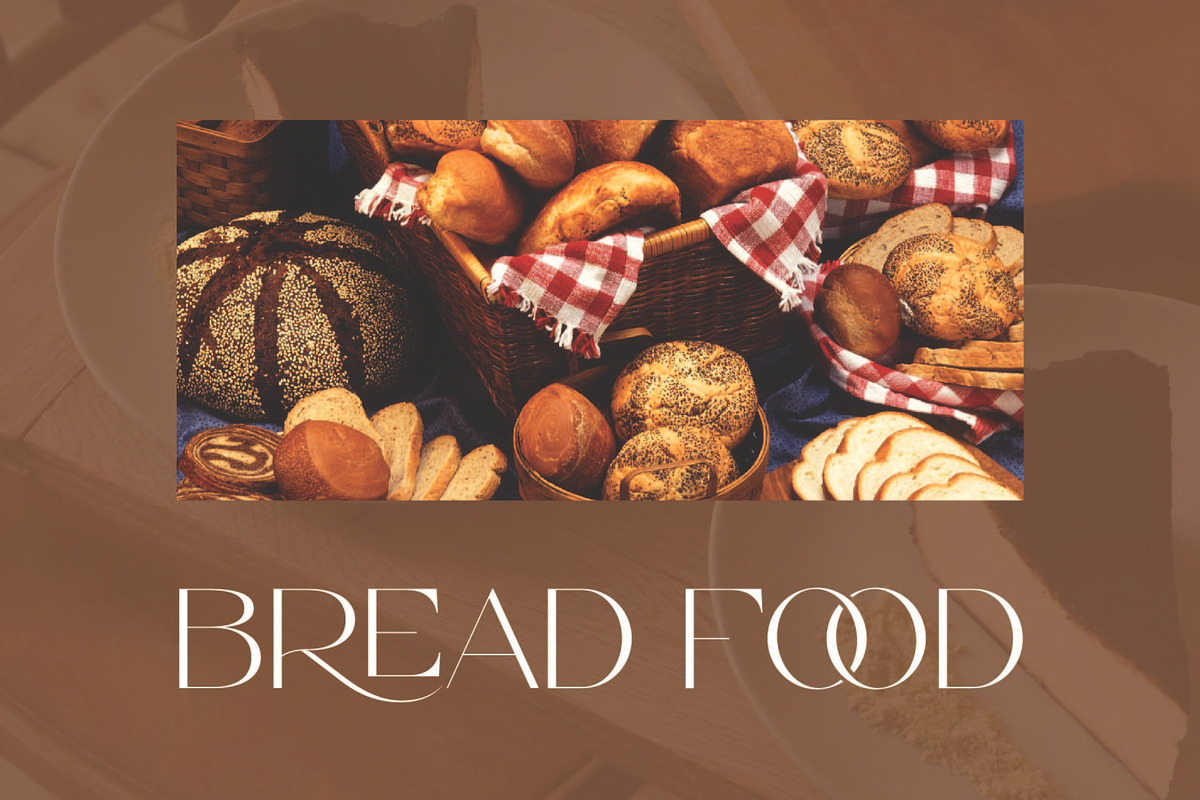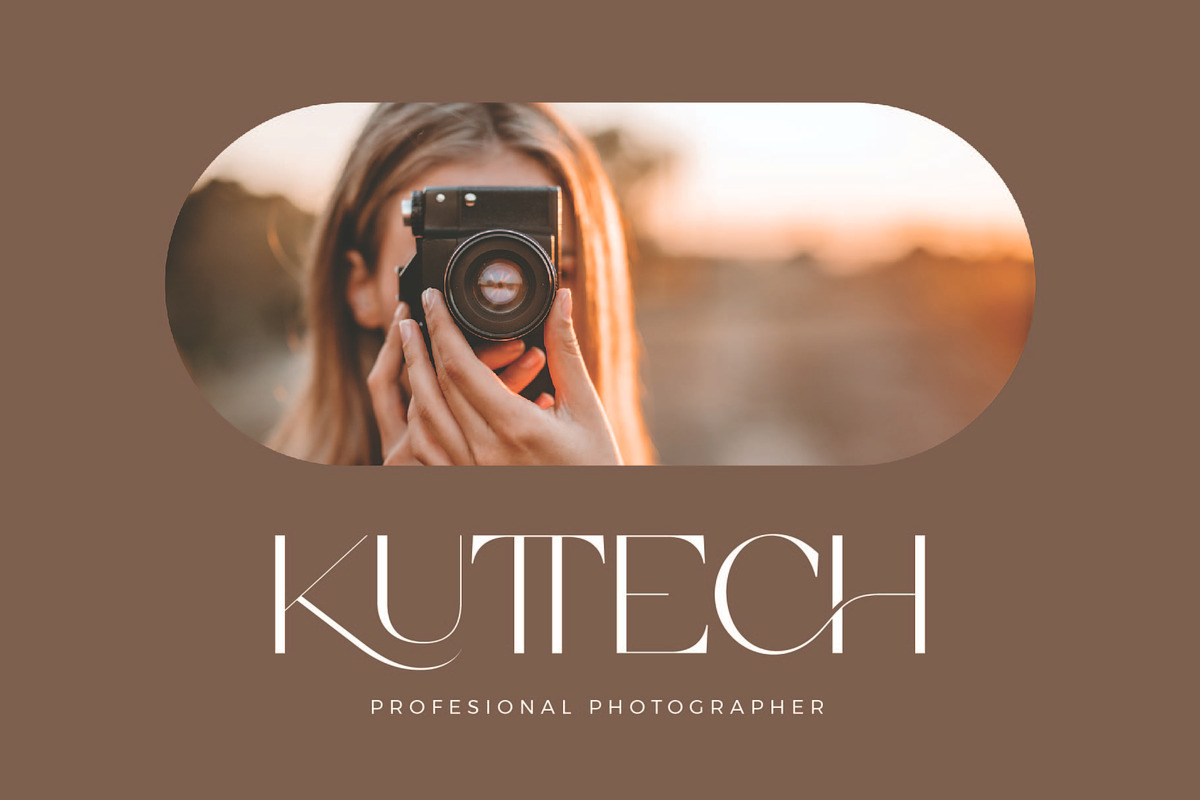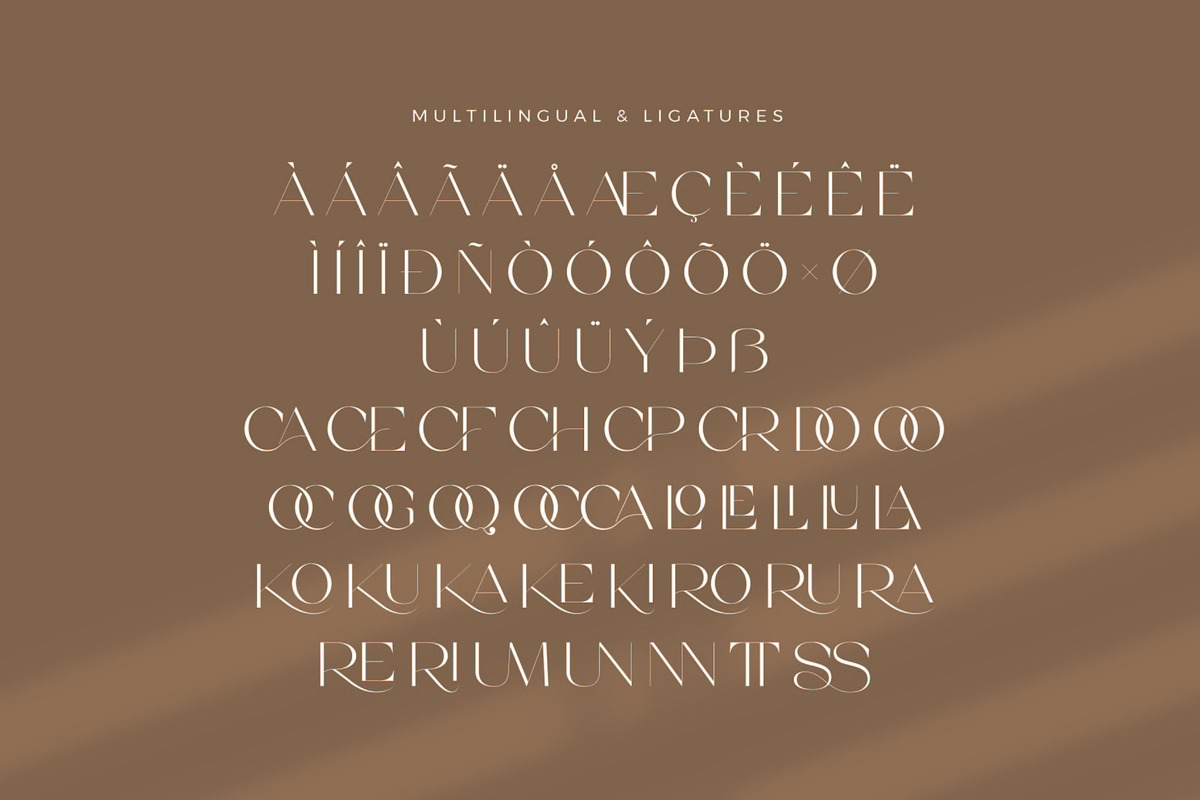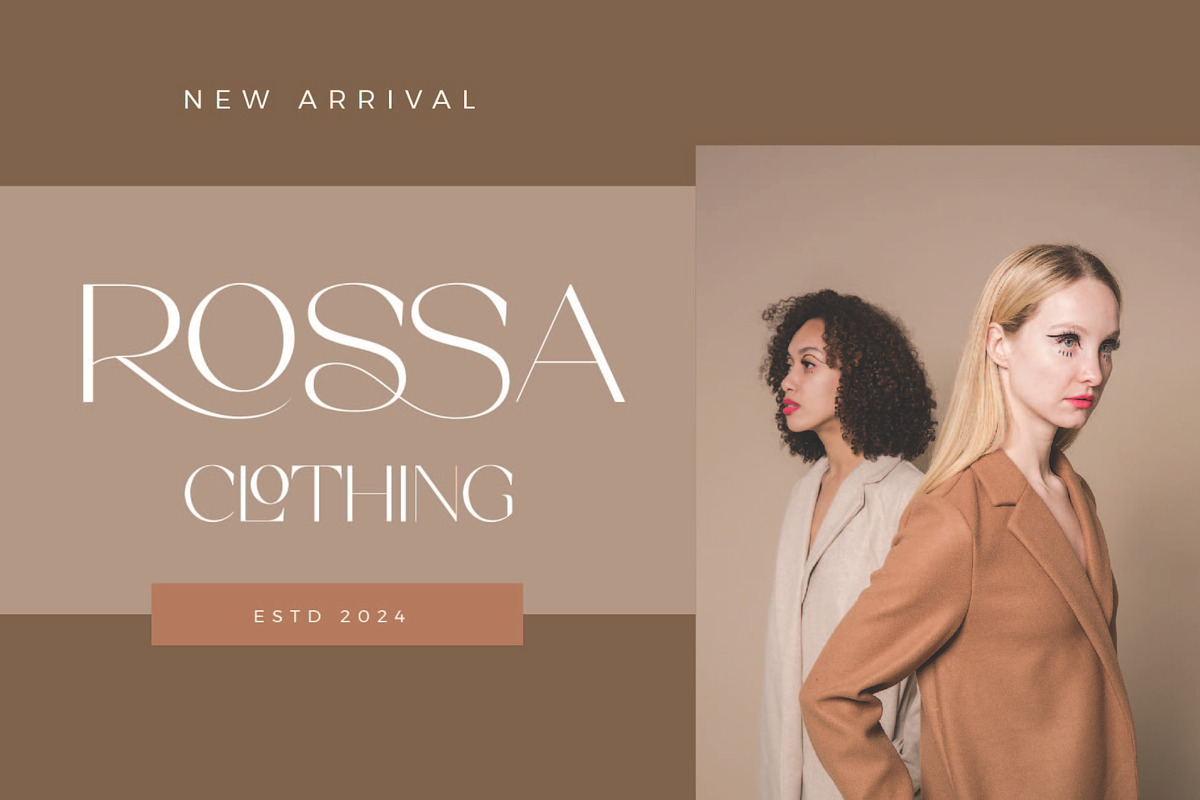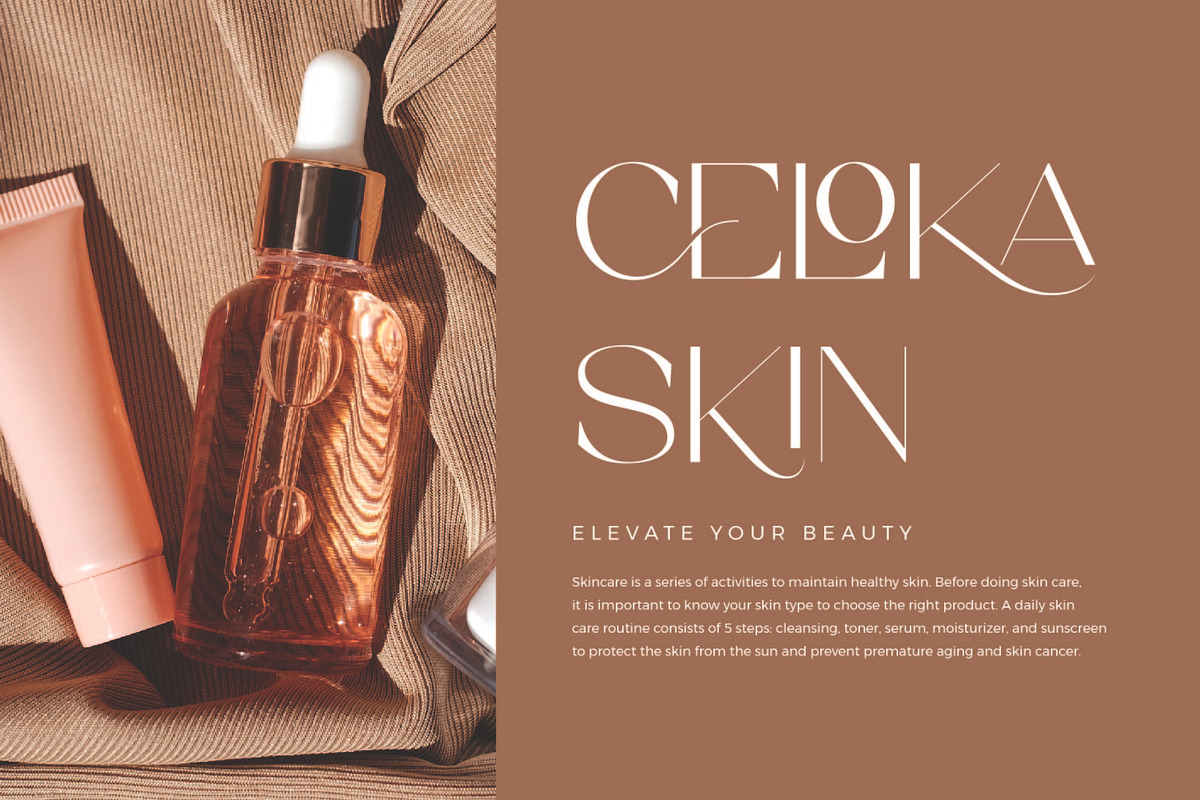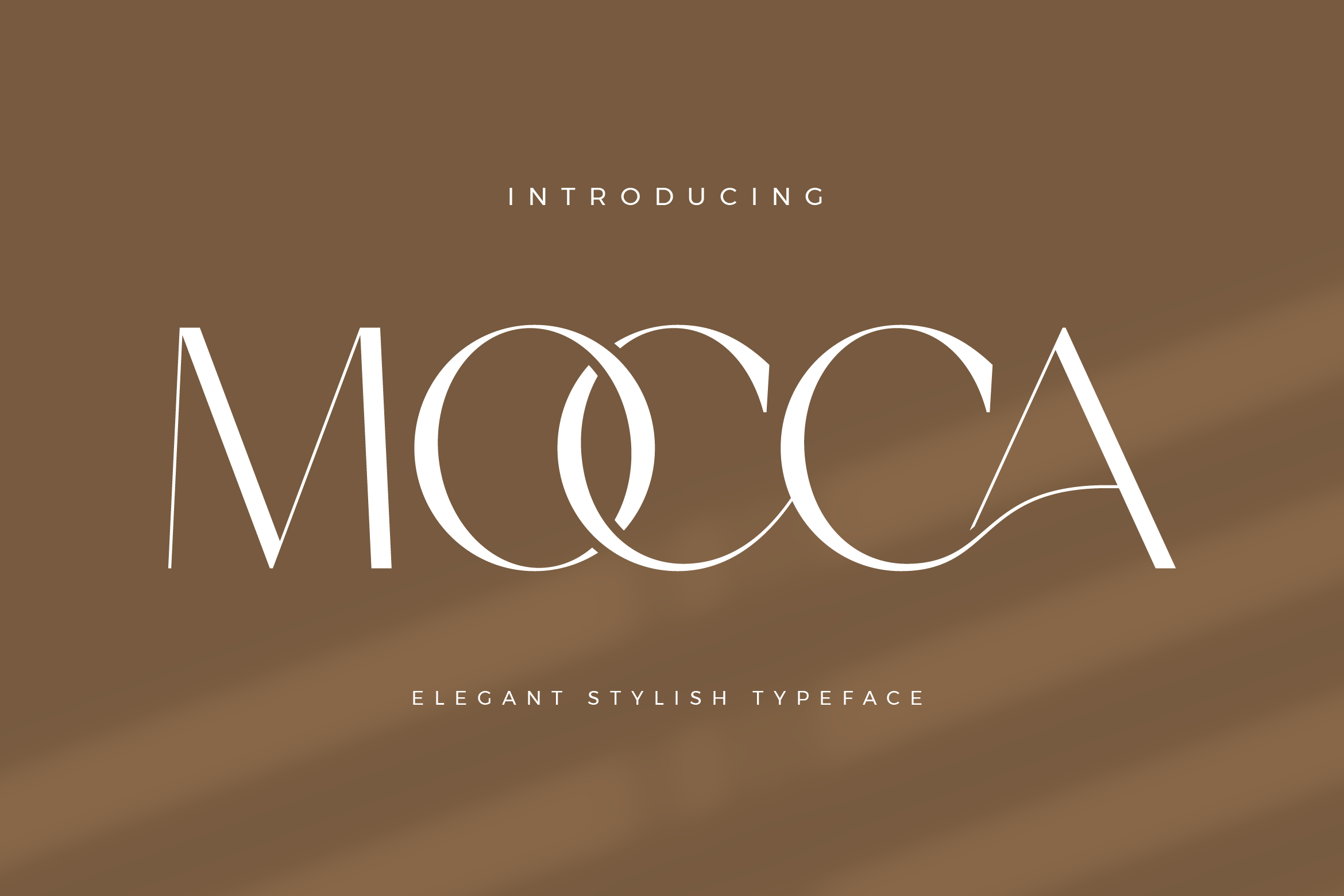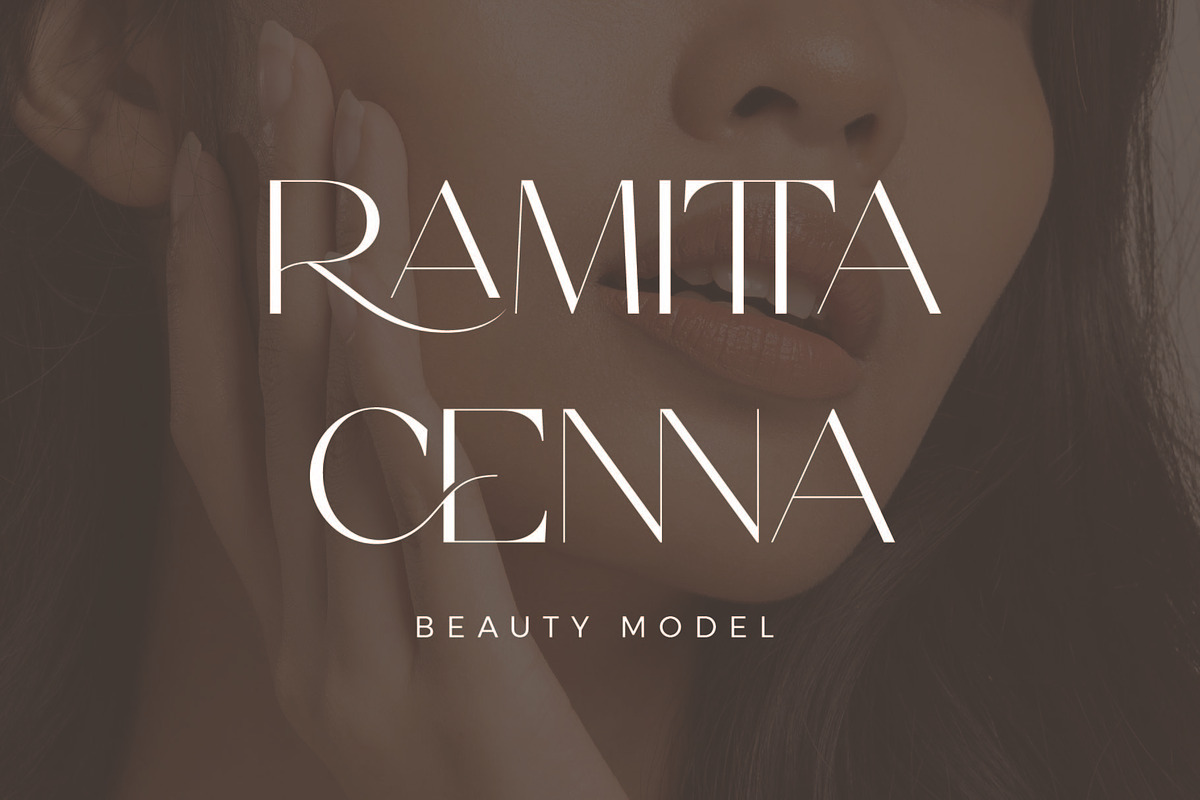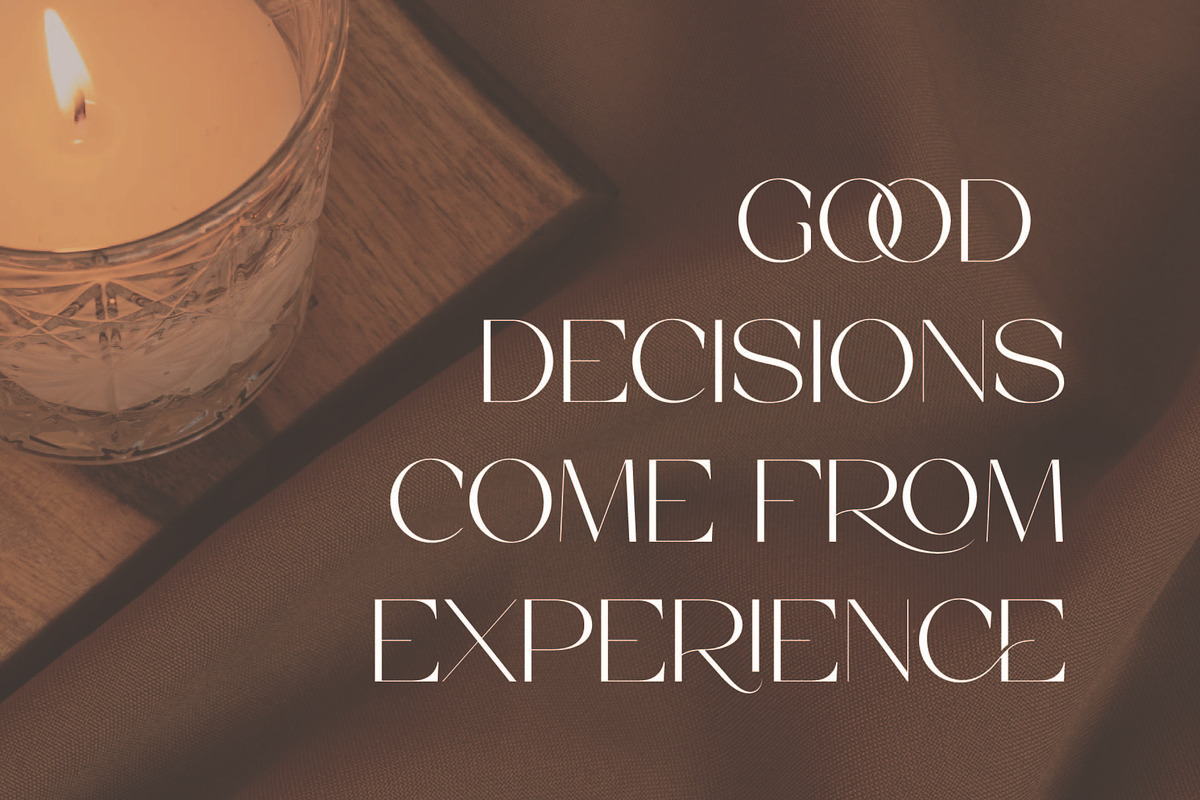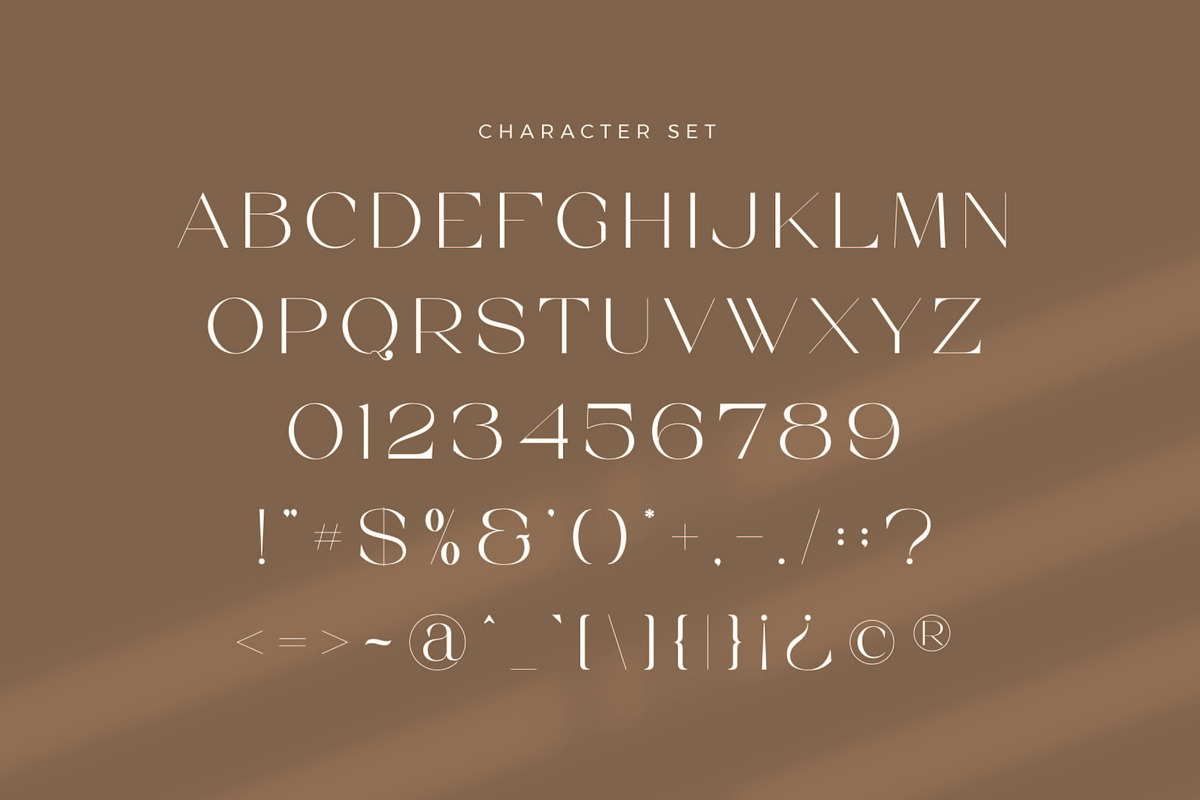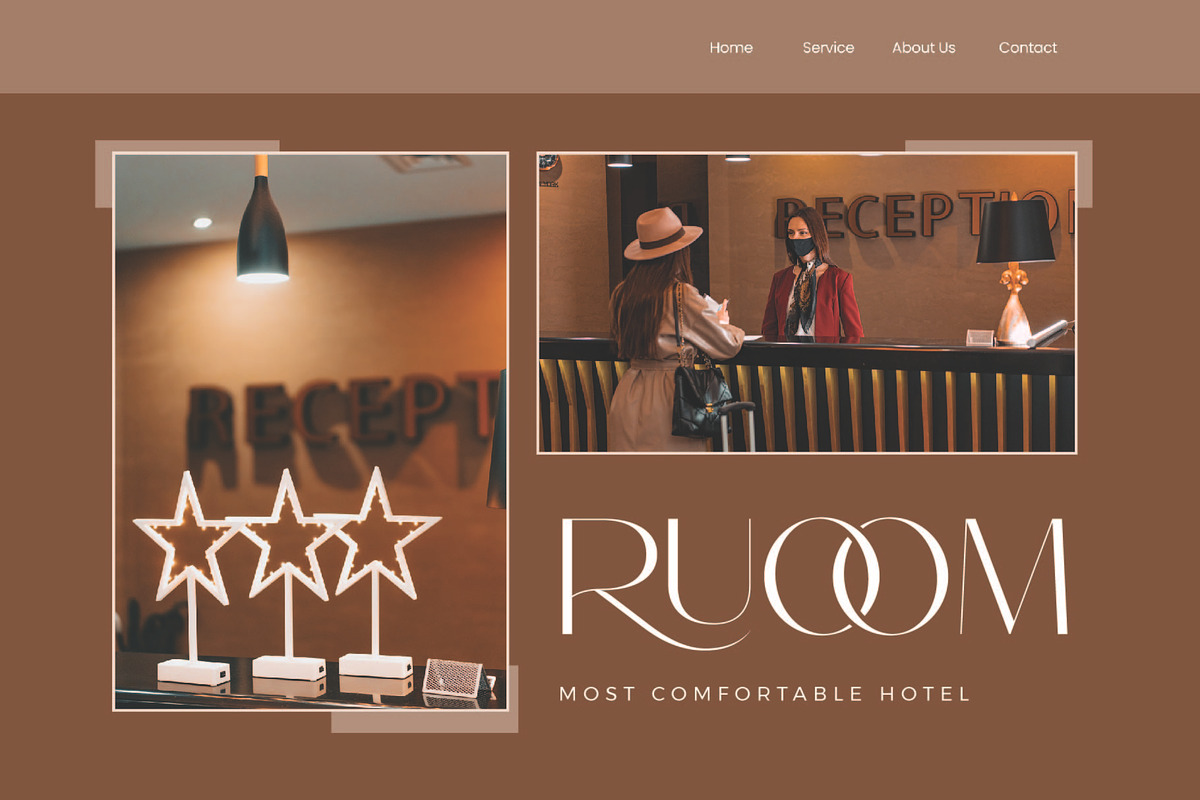
Mocca - Stylish Sans Serif Font
Mocca Sans Font Typeface inspired by the famous minimalist logo perfect for the purposes of designing templates, brochures, videos, advertising branding, logos, invitation, layout design, elegant crafting, beauty design and other.